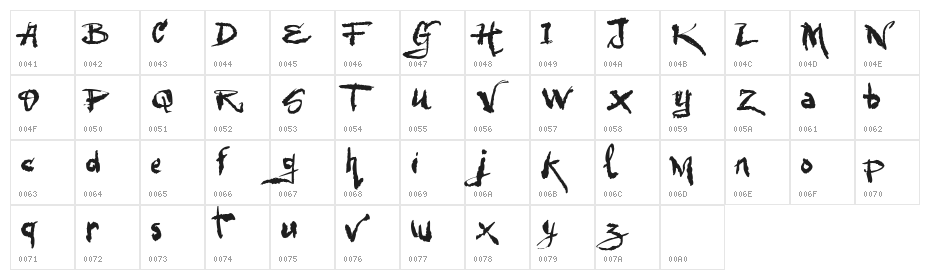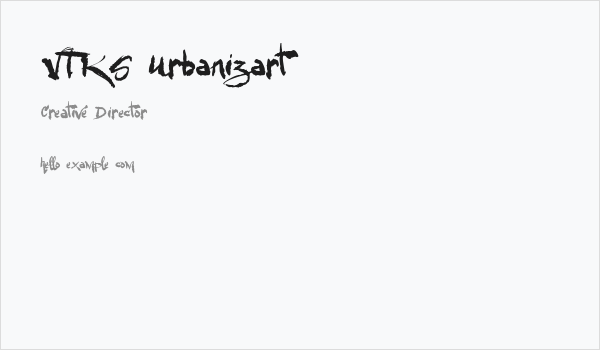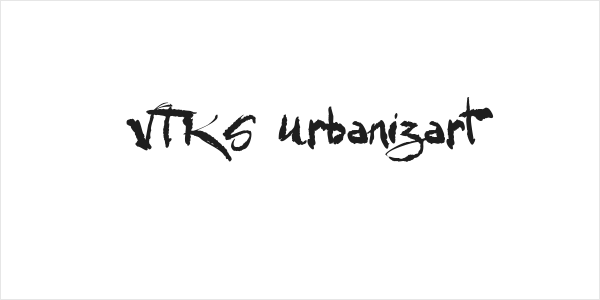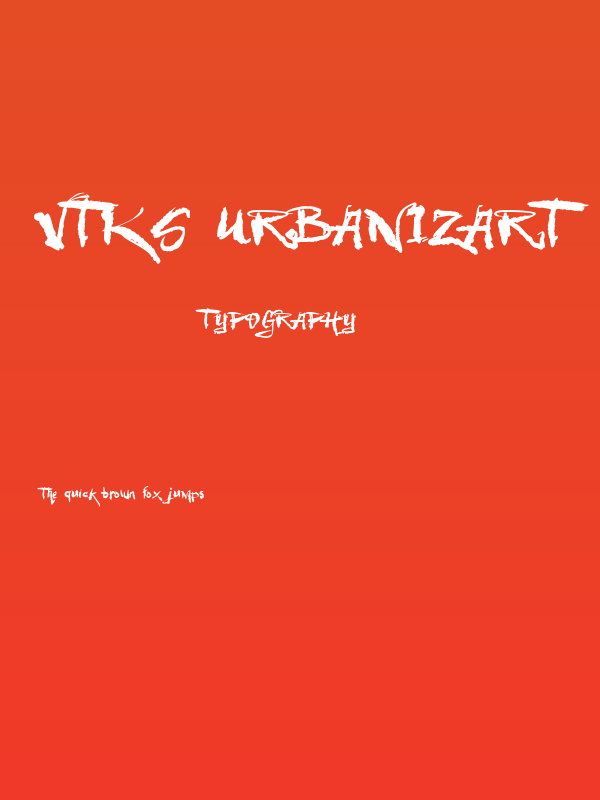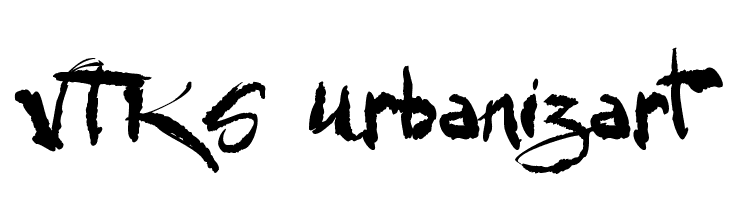
VTKS Urbanizart Font
This font features a bold, expressive style with a hand-drawn appearance, characterized by irregular strokes and a dynamic flow. The letters are crafted with a graffiti-like aesthetic, giving them a raw and urban feel. The uppercase and lowercase letters maintain a consistent style, with exaggerated curves and sharp angles that create a sense of movement. The numbers and special characters follow the same artistic approach, ensuring a cohesive look across all elements. This font's unique design makes it stand out, offering a creative and edgy vibe suitable for various artistic applications.
| Overall Style | Urban, Artistic, Graffiti |
| Use Case | Logos, Posters, Album Covers |
| Proposed Projects | Ideal for street art designs, music album covers, edgy branding, and creative posters. |